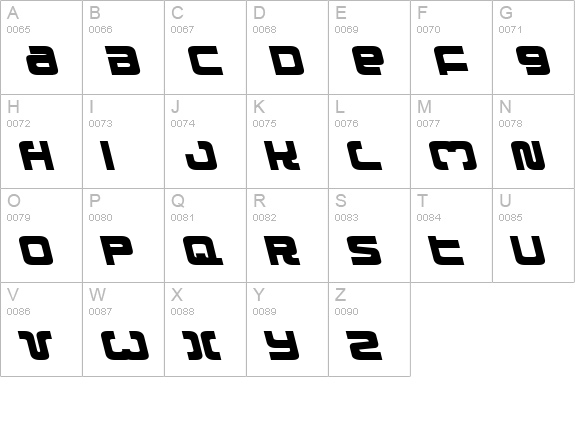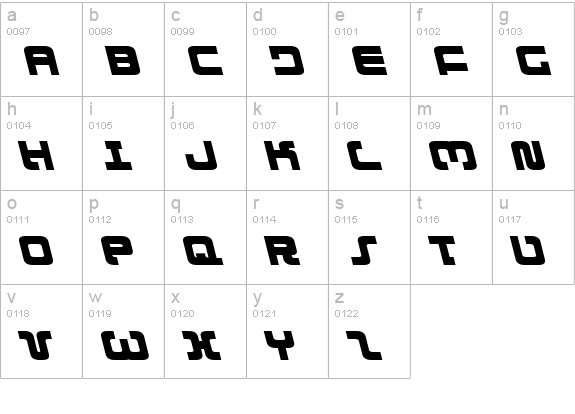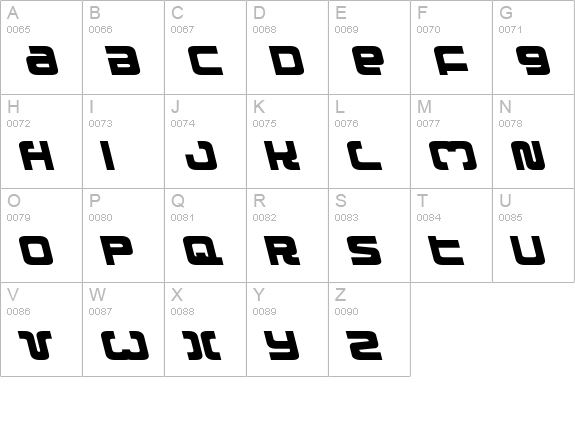
Exedore Leftalic font is a modern and stylish typeface that exudes sophistication and elegance. With its slanted design and sleek curves, this font is perfect for adding a touch of sophistication to any project. The Exedore Leftalic font is ideal for creating eye-catching headlines, elegant logos, and stylish invitations. What sets Exedore Leftalic font apart is its versatility and readability, making it suitable for a wide range of design projects. Whether you're working on a website, branding materials, or print designs, this font will elevate your work to the next level. Best of all, Exedore Leftalic font is available for free download at FontsMarket.com. So, you can easily access this beautiful typeface and use it in your projects without any cost. Don't miss out on the opportunity to enhance your designs with the stunning Exedore Leftalic font today!